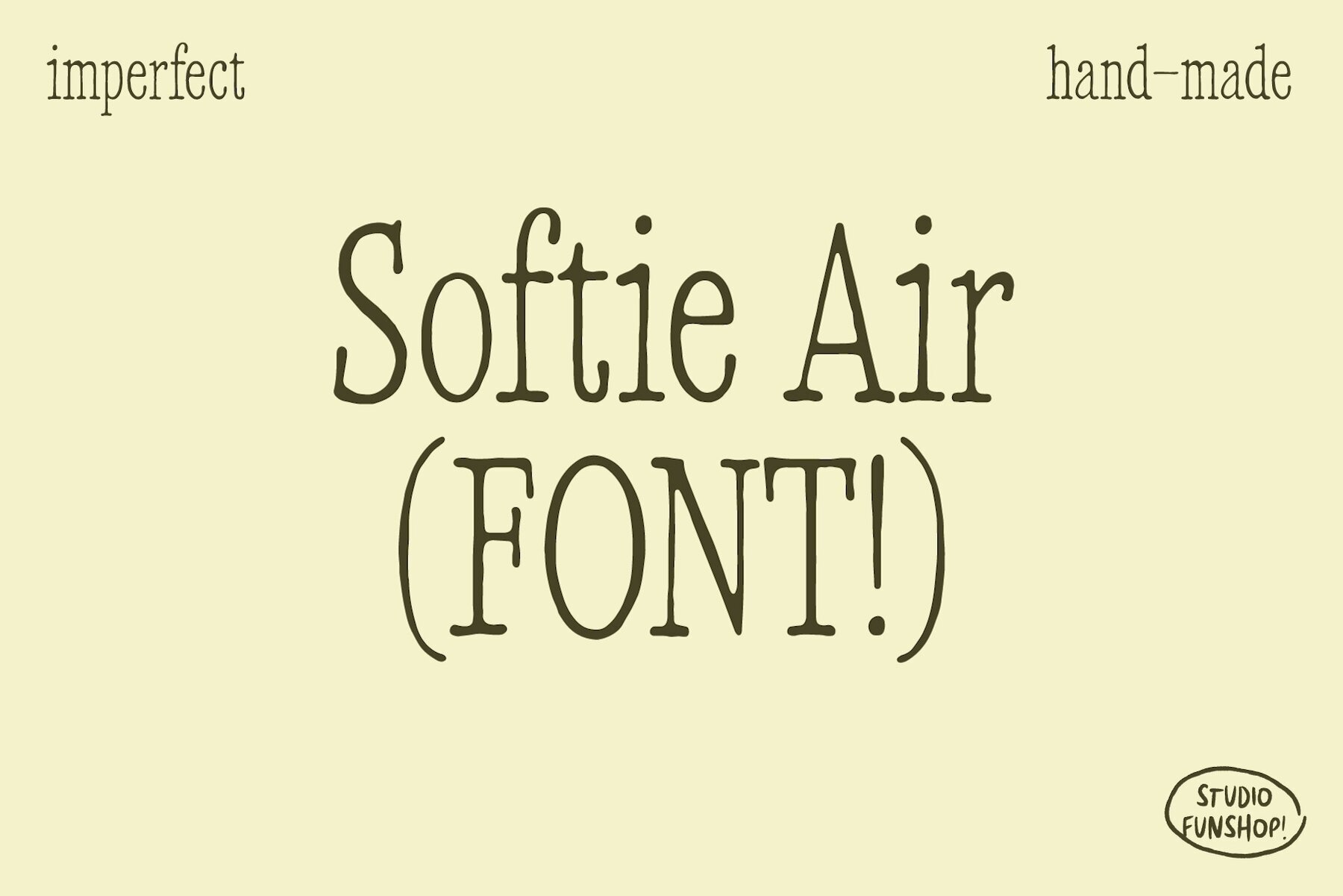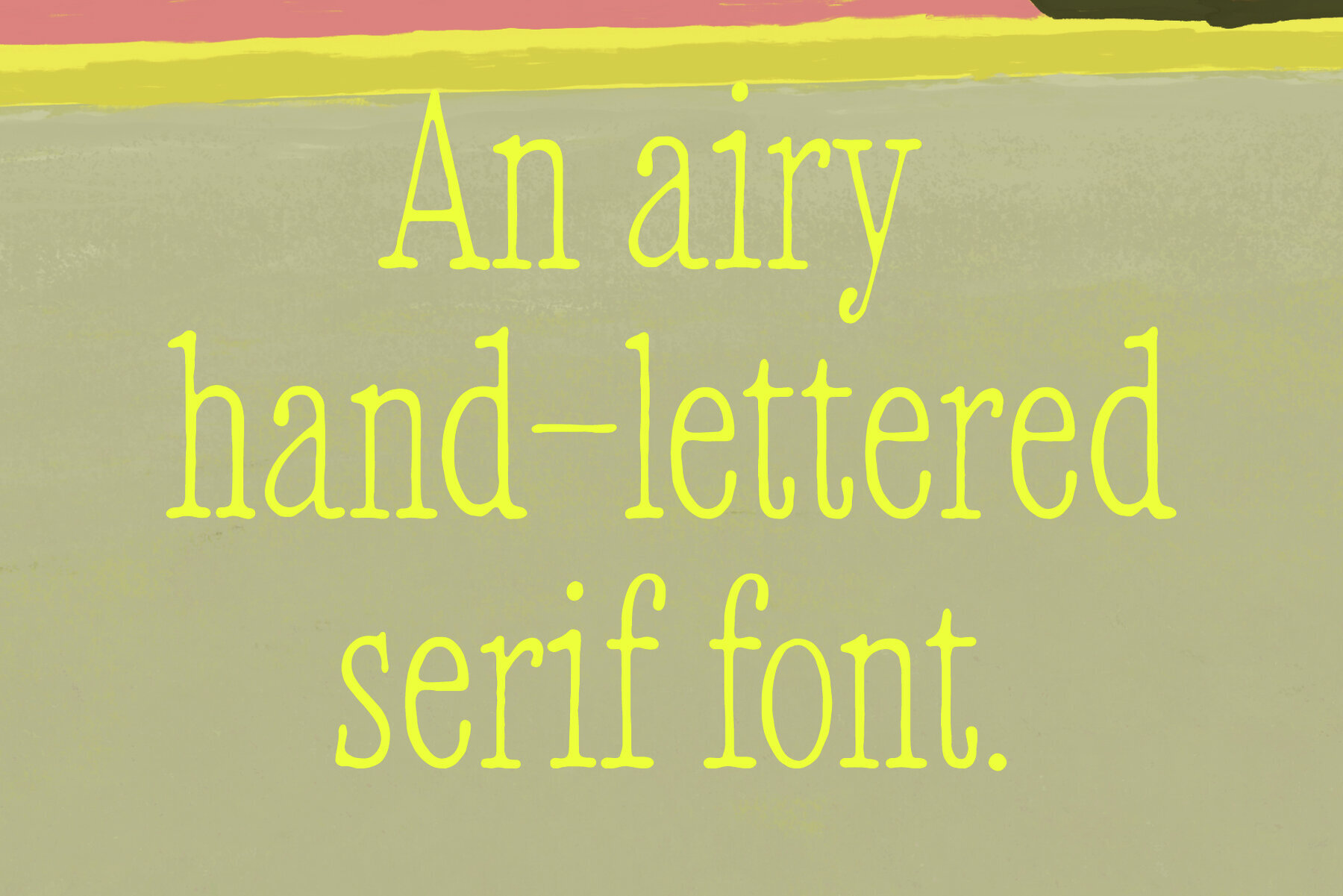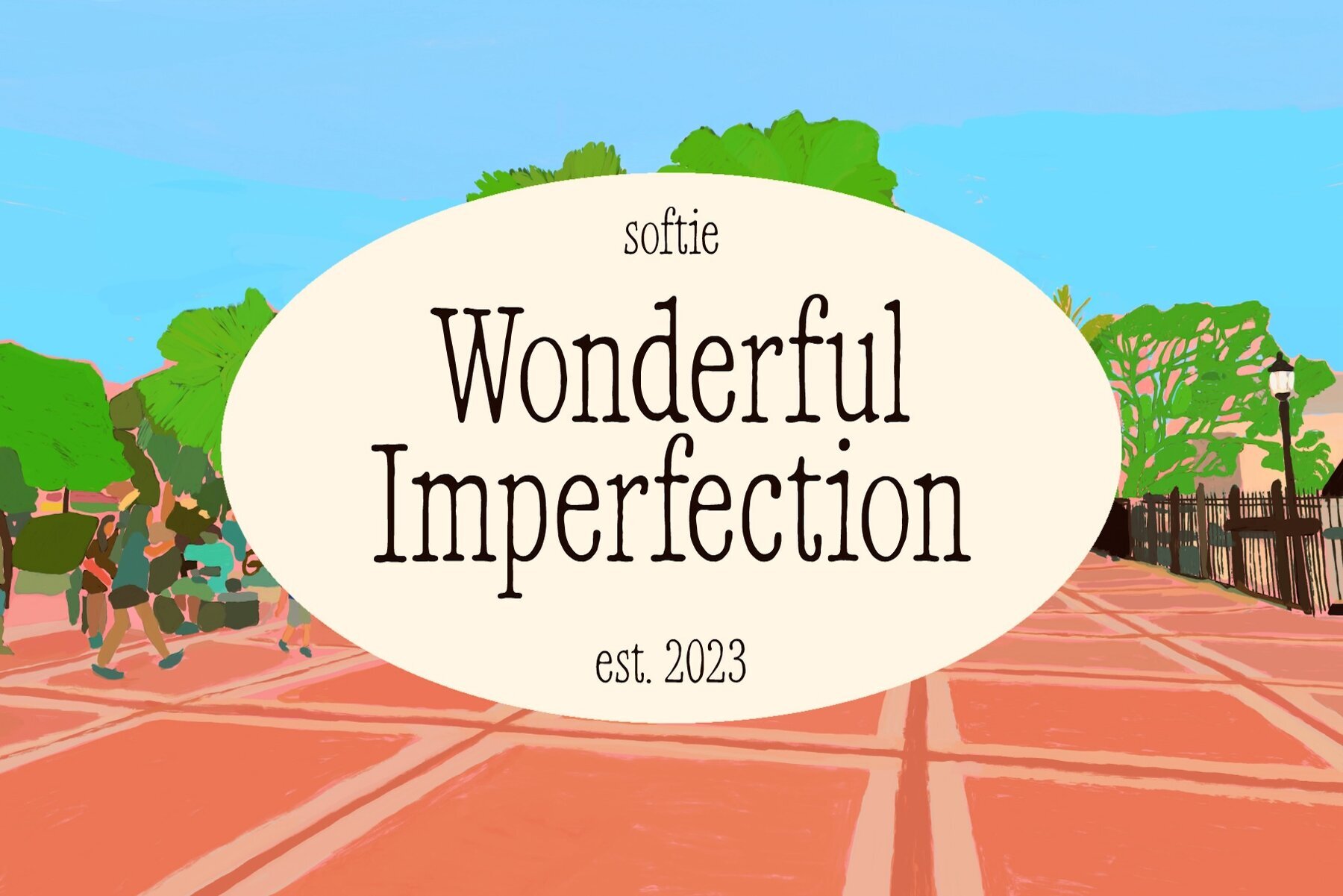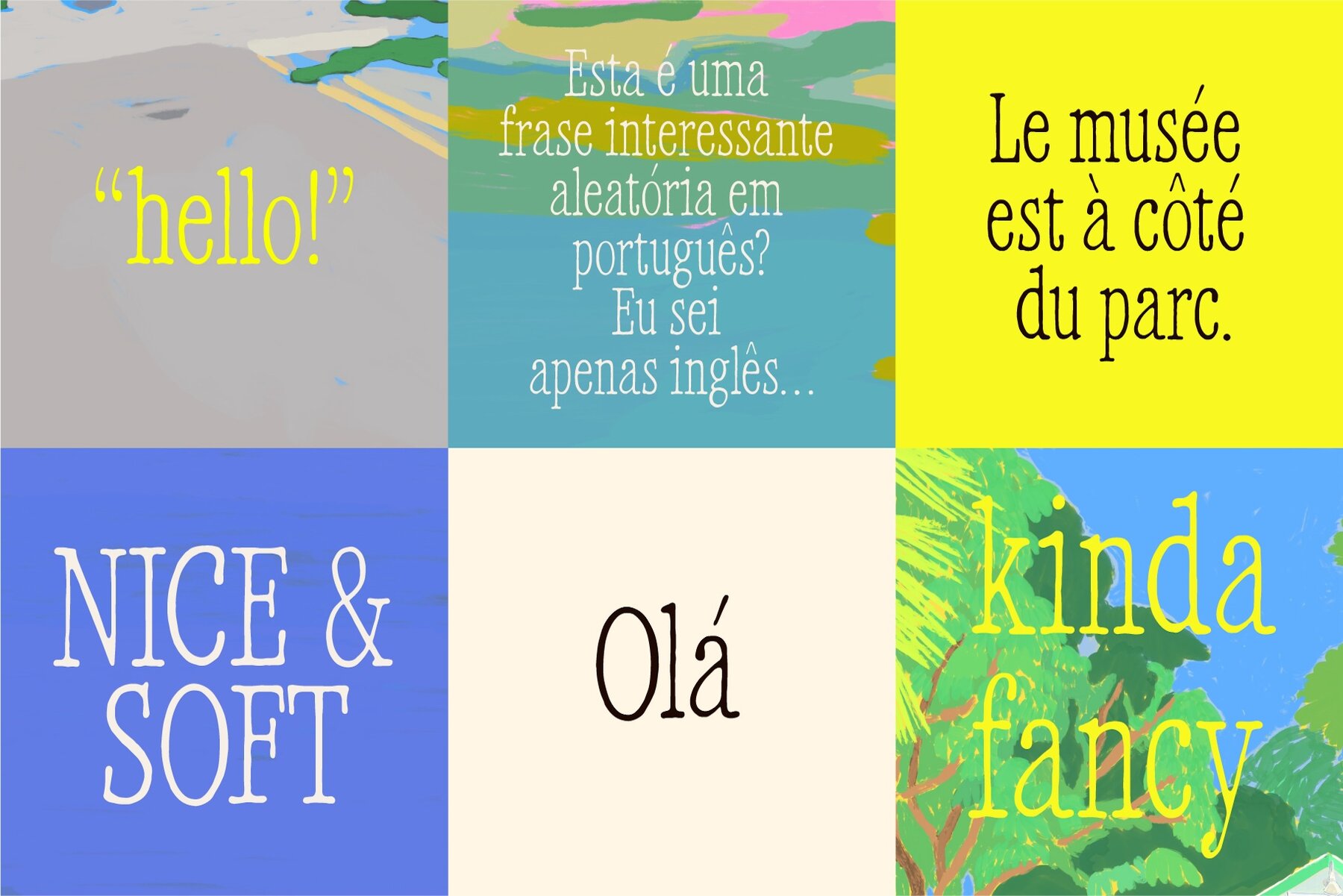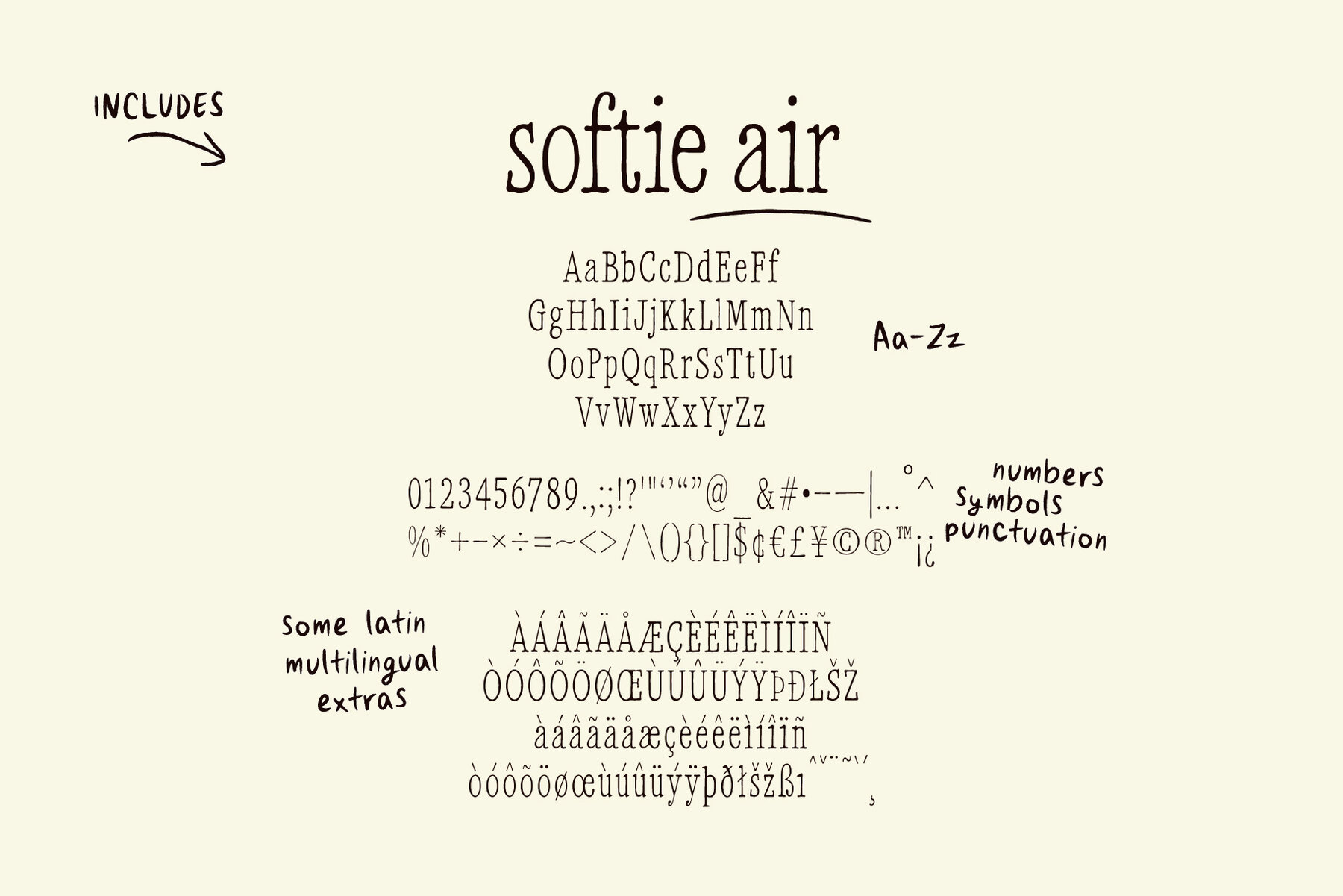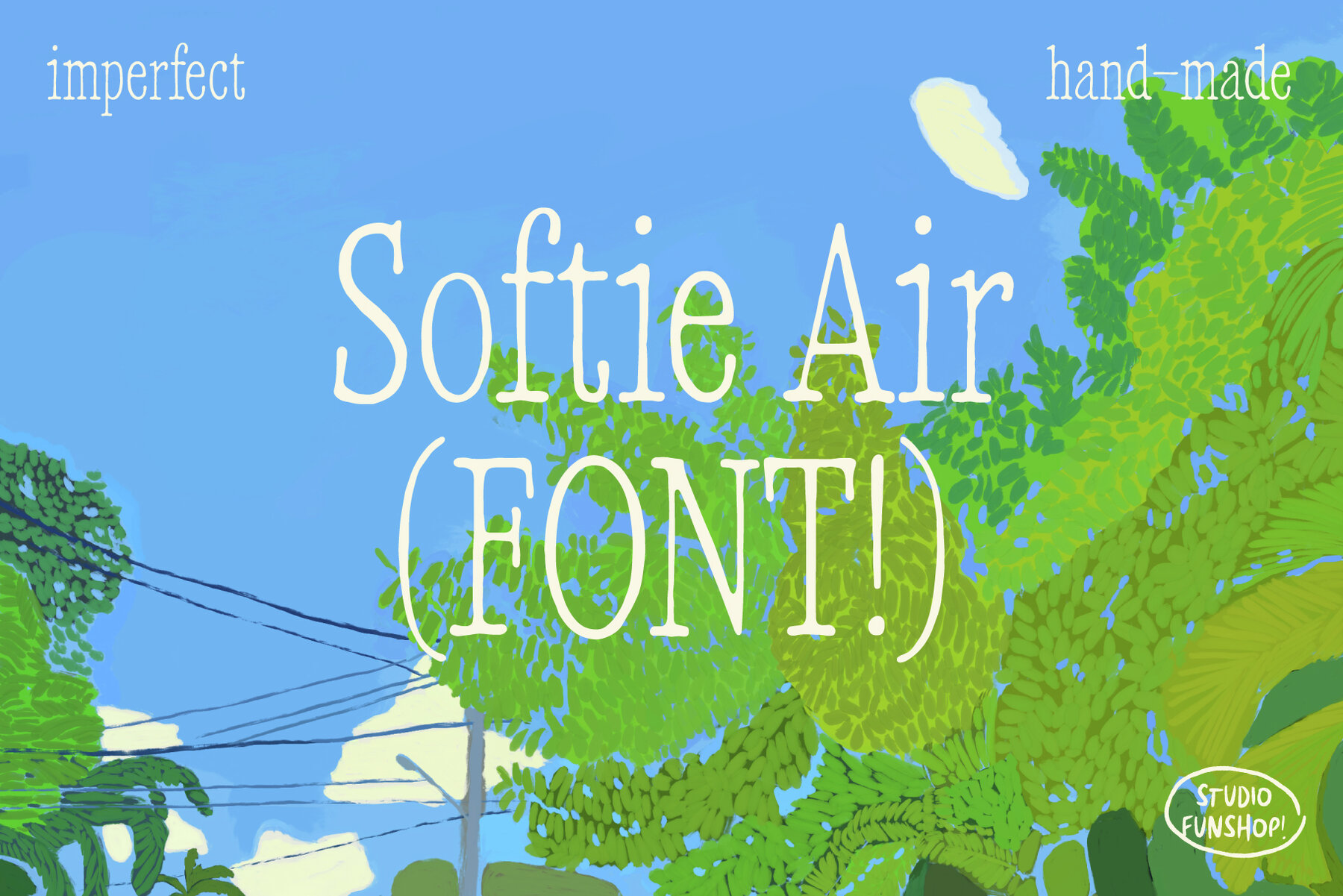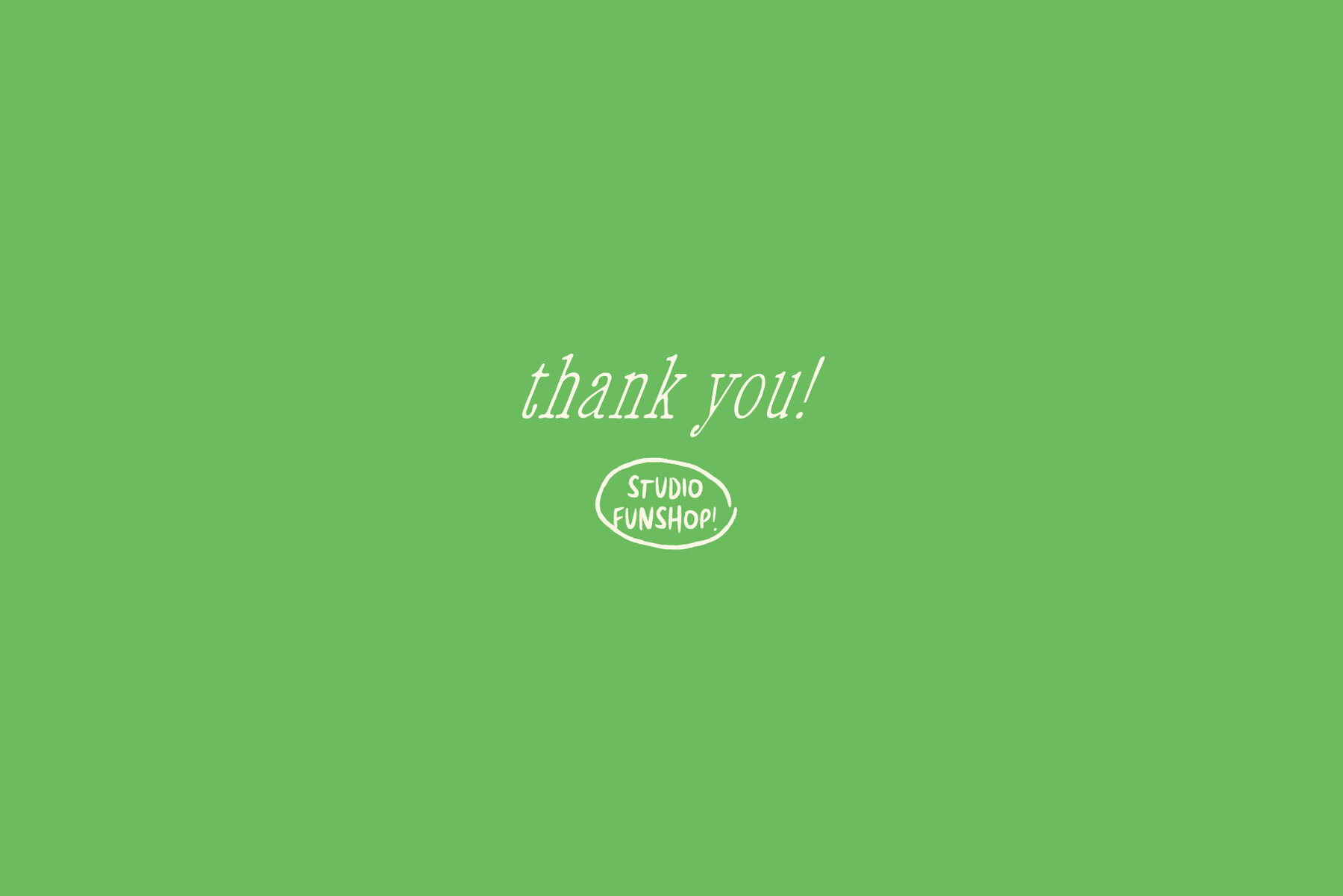
Softie Air Font
Hello Softie Air
Drawing inspiration from organic forms, Softie Air offers a delicately hand-painted character set that brings warmth and personality to your projects. This font captures the essence of imperfection, adding a unique touch to any design.Softie Air: Charming Hand-Lettered Font